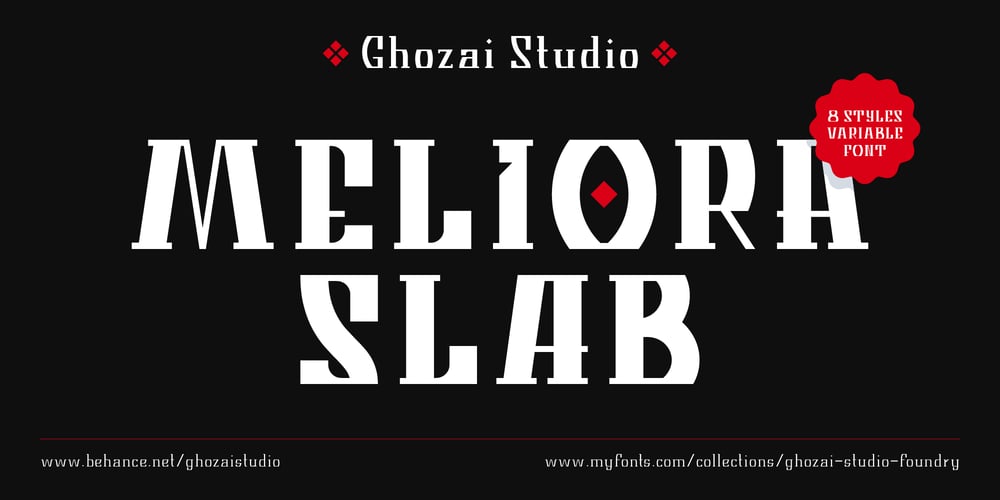
Meliora Slab
Meliora Slab font
Meliora Slab Font Family was designed by Manzur Ghozaali and published by Ghozai Studio. Meliora Slab contains 8 styles and family package options. Meliora Slab is the serif/slab version of the Meliora font, which gives more design options. Meliora Slab is a font inspired by letters that appear to be cut at both the top and bottom, creating a unique visual aesthetic. Its design features a blend of bold, thick, and thin lines, resulting in dynamic typography that captures attention. With a wide range of variations, from thin to extra bold, Meliora Slab offers limitless versatility, making it an excellent choice for various design applications, including posters, headlines, logos, and branding materials.